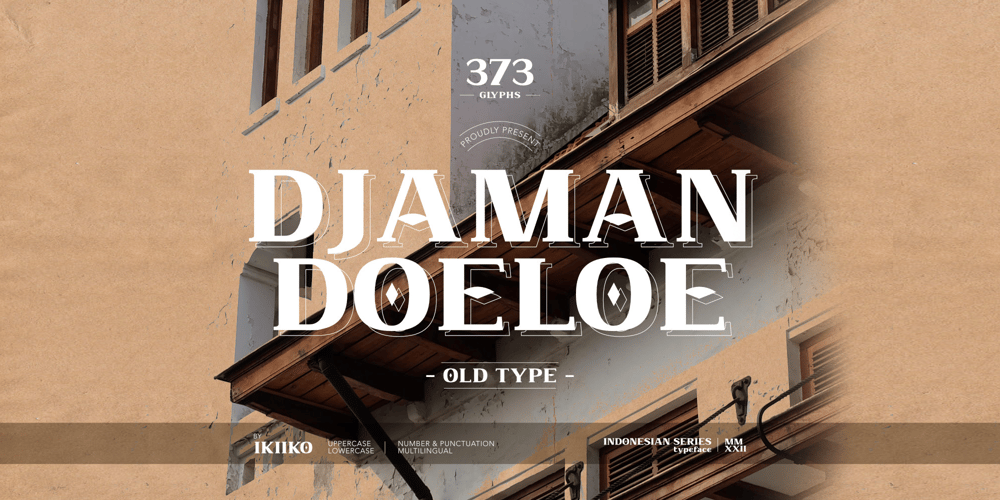
Djaman Doeloe Font Family was designed by Wahyu Eka Prasetya, Andhika Pradana and published by IKIIKOWRK. Djaman Doeloe contains 1 styles and family package options. Introducing Djaman Doeloe – Old Type, created by ikiiko.Djaman Doeloe is a classic serif typeface with unique decorative element. Is an extension of the word taken from the indonesian language term “jadoel” which means antiquity. This typeface is perfect for an elegant logo, classy branding, vintage stuff, wedding, invitation, magazine layout, quotes, or simply as a stylish text overlay to any background image.What’s included? Uppercase & Lowercase Number & Punctuation Multilingual Support Works on PC & Mac Enjoy our font and if you have any questions, you can contact us by email : ikiikowrk@gmail.com